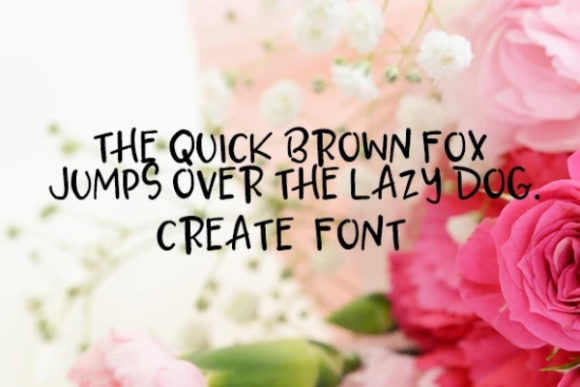
Create Font: A Bold Display Font for Your Creative Projects
Are you looking for a font that can add a touch of personality to your designs? Look no further than Create Font, a bold display font that’s been carefully handcrafted to become a true favorite among designers and crafters. With its casual charm and down-to-earth feel, Create Font is the perfect choice for a wide range of creative projects.
The Characteristics of Create Font
Create Font is a versatile font that’s designed to be incredibly readable, even in a variety of contexts. Its bold and sturdy letterforms make it perfect for use on busy backgrounds, while its elegant lines and curves ensure that it looks great as a standalone headline. Whether you’re designing a logo, a poster, or a website, Create Font is the perfect choice.
Casual Charm and Versatility
One of the things that sets Create Font apart from other display fonts is its casual charm. It’s a font that feels approachable and friendly, rather than stiff or formal. This makes it perfect for designers who want to add a touch of personality to their work. At the same time, Create Font is incredibly versatile, and can be used in a wide range of contexts. Whether you’re designing a business card or a billboard, Create Font is a great choice.
What Makes Create Font Stand Out
- Handcrafted with care: Create Font is a font that’s been carefully handcrafted to ensure that every letterform is perfect. This attention to detail makes it feel more personal and unique.
- Bold and sturdy letterforms: Create Font’s bold and sturdy letterforms make it perfect for use on busy backgrounds or in situations where you need a font that can stand out.
- Elegant lines and curves: Despite its bold and sturdy letterforms, Create Font also has elegant lines and curves that make it feel sophisticated and refined.
- Highly versatile: Create Font is a font that can be used in a wide range of contexts, from logos and posters to websites and more.
- Use it as a headline: Create Font is perfect for use as a headline, whether you’re designing a poster, a website, or a social media graphic.
- Pair it with other fonts: Create Font can be paired with other fonts to create a unique and interesting look. Try pairing it with a sans-serif font for a bold and modern look.
- Experiment with different colors: Create Font looks great in a wide range of colors, from bold and bright to subtle and muted. Experiment with different colors to find the perfect look for your design.
Create Font is a bold display font that’s perfect for designers and crafters who want to add a touch of personality to their work. With its casual charm, down-to-earth feel, and incredible versatility, Create Font is a font that can be used in a wide range of creative projects. Whether you’re designing a logo, a poster, or a website, Create Font is a great choice. So why not give it a try and see what you can create?
Key Features of Create Font
| Font Style | Bold Display Font |
| Letterforms | Handcrafted with care |
| Versatility | Highly versatile, suitable for a wide range of contexts |
| Readability | Incredibly readable, even on busy backgrounds |
- What is Create Font?
- Create Font is a bold display font that’s been carefully handcrafted to become a true favorite among designers and crafters.
- What makes Create Font special?
- Create Font is special because of its casual charm, down-to-earth feel, and incredible versatility.